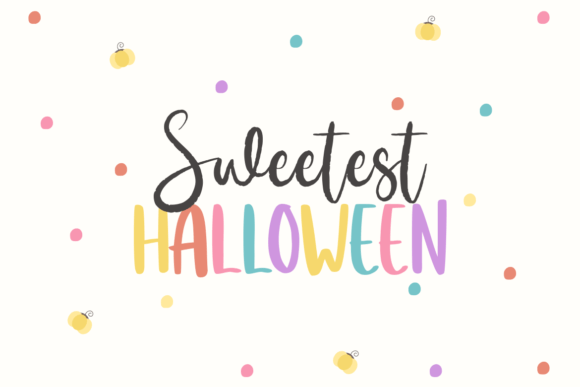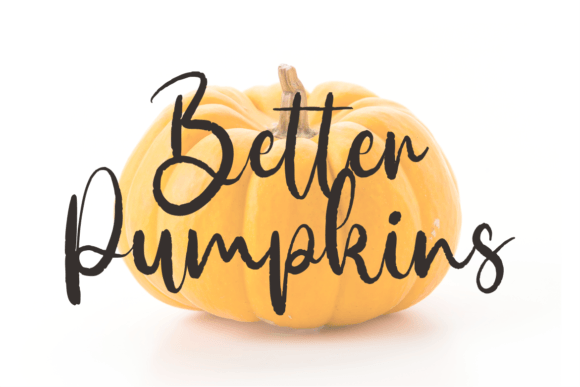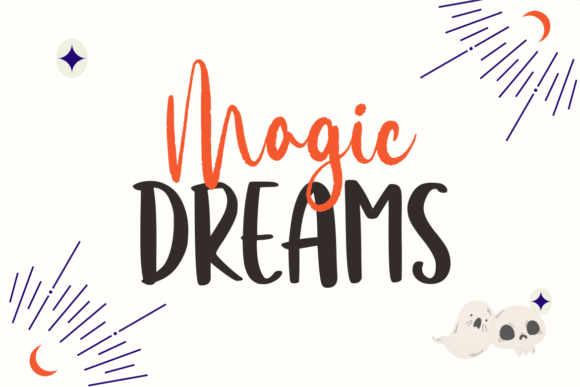
Mystic Dreamer Duo Font
Mystic Dreamer Duo is a spooky, cute, and playful handwritten font duo (script and display sans serif). Whimsical and a bit mysterious, this font is perfect for all your horror-themed and Halloween projects.